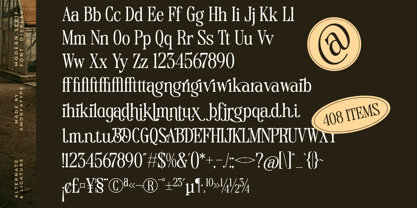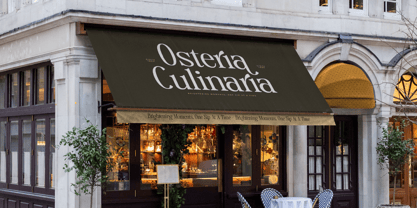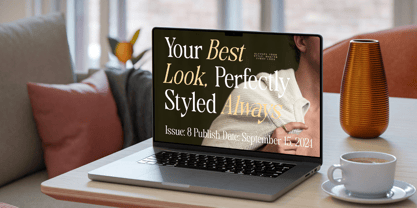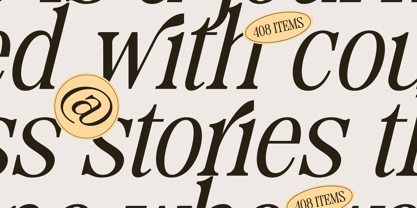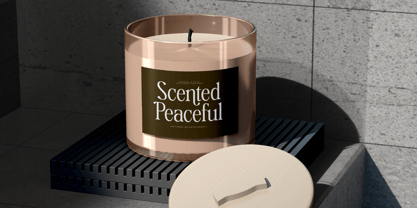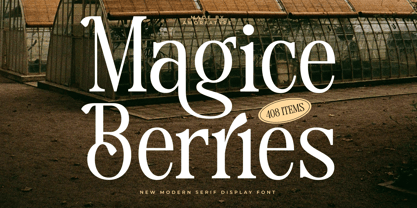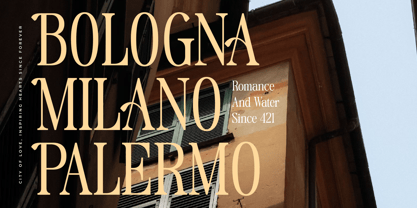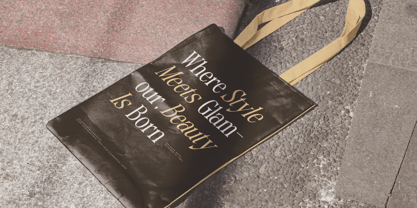
Magice Berries
von Amorfa Type
Die Schriftfamilie Magice Berries wurde von Shiddiq Roihan entworfen und von Amorfa Type veröffentlicht. Magice Berries enthält 2 Stile und Familienpaketoptionen. Mehr über diese Familie
Magice Berries is a stylish modern serif font that blends whimsical charm with refined elegance. Characterized by soft curves, high contrast strokes, and expressive details, Magice Berries evokes a magical, artistic feel while maintaining a polished and professional structure. It’s the perfect serif for designs that require both personality and sophistication.